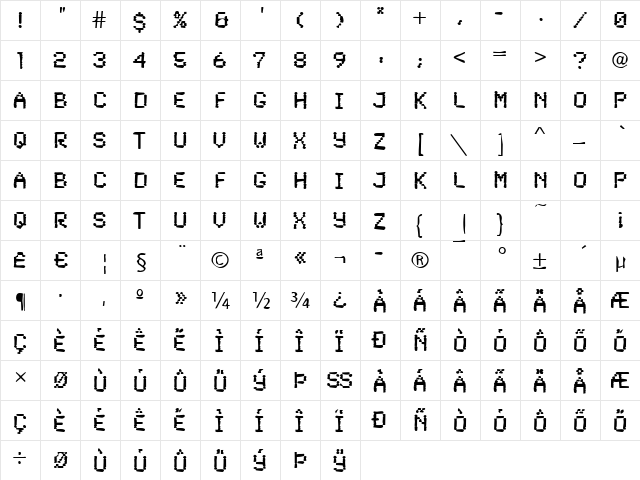
Dirty48 Bold
Design Context for Dirty48 Typeface
Dirty48 takes a measured approach to typography — its balanced proportions and neutral character make it a reliable workhorse for both digital and print work. Its bold stroke weight gives it real presence on the page.